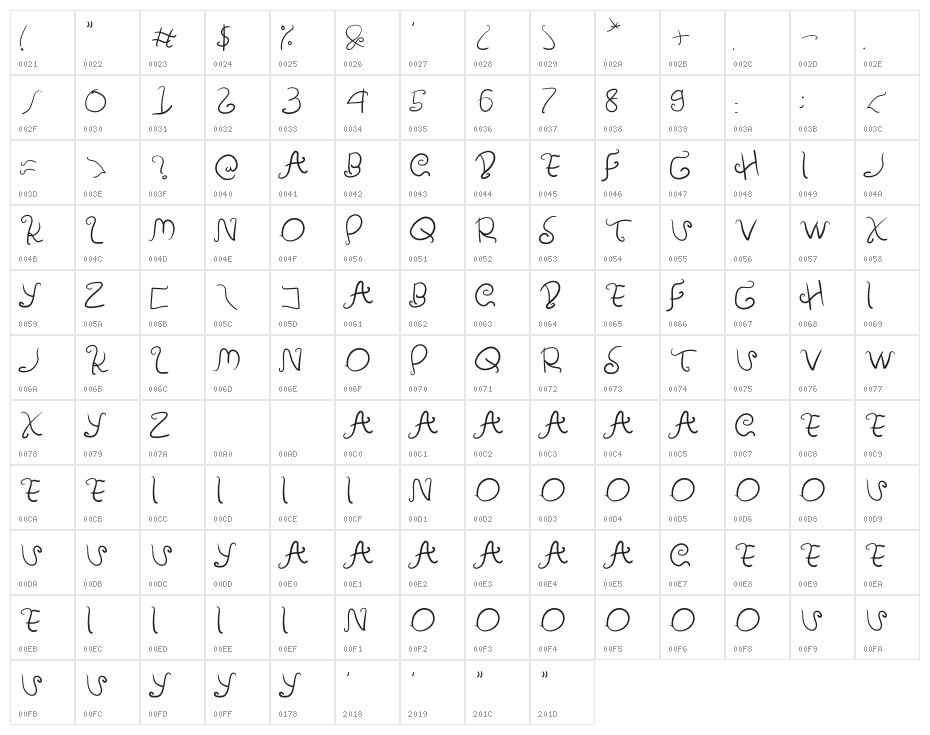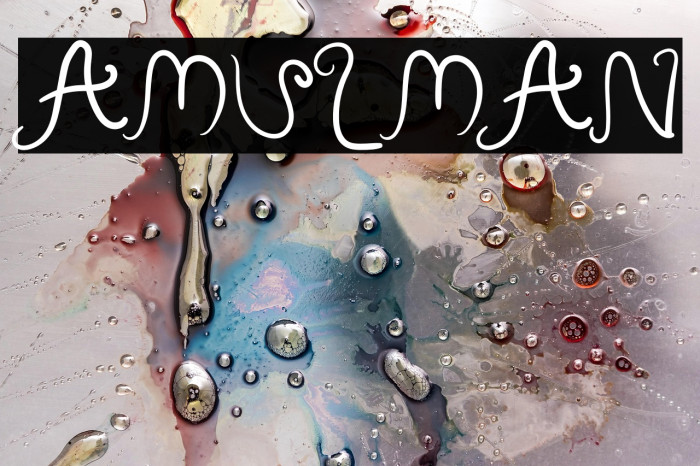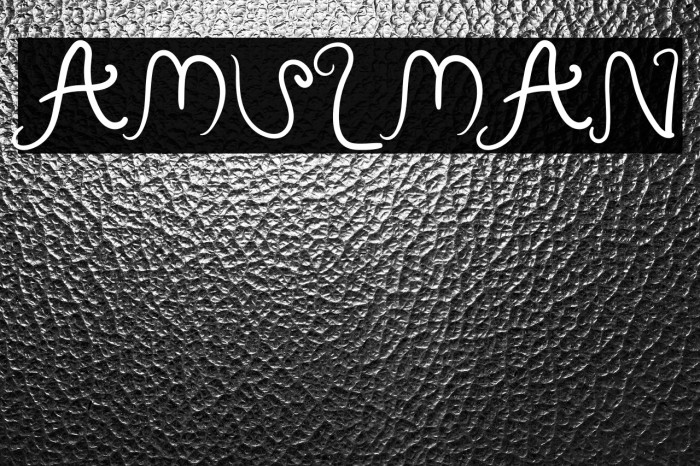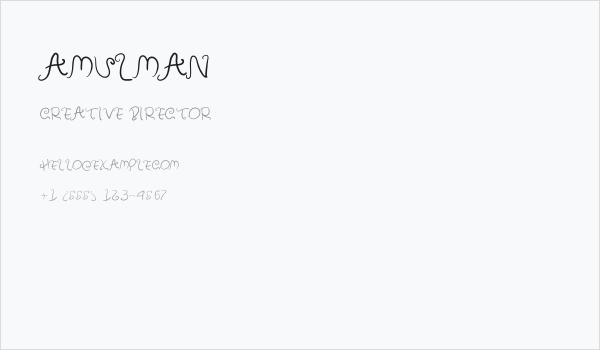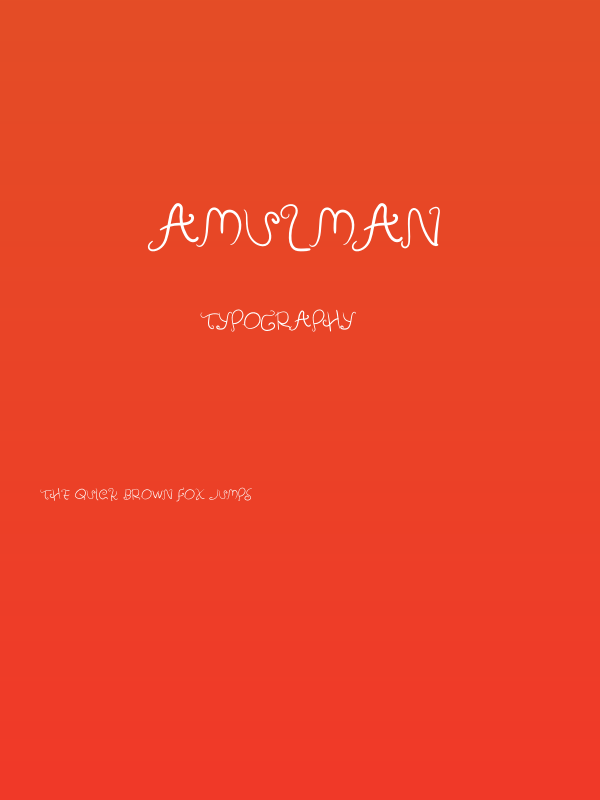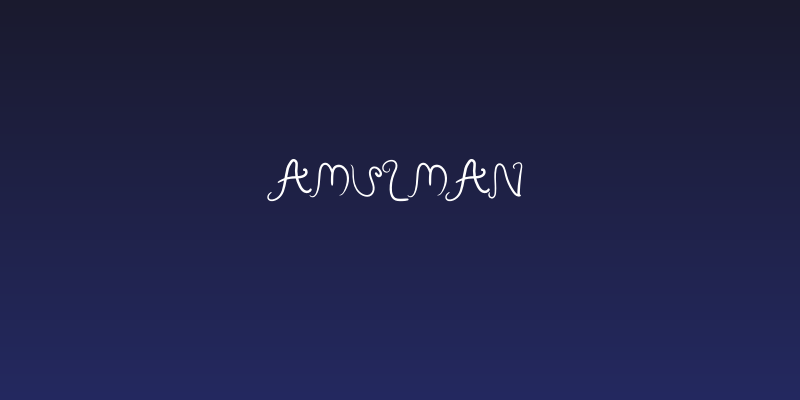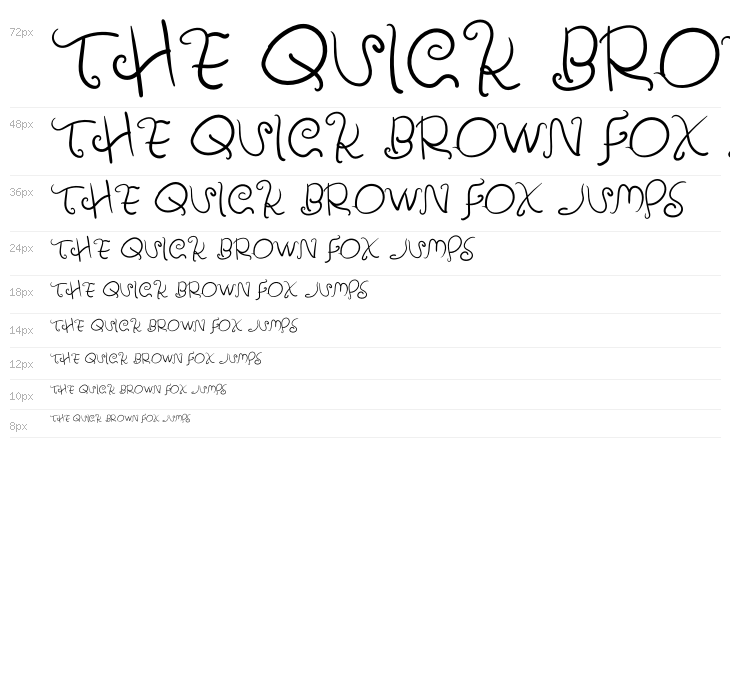
Amulman Font
Amulman Description
This font features a whimsical and artistic style, characterized by its flowing, cursive-like strokes and playful loops. The uppercase letters are bold and expressive, with exaggerated curves and swirls that give them a lively appearance. The lowercase letters maintain a similar aesthetic, with a slightly more restrained design that complements the uppercase. Numbers and special characters follow the same decorative theme, ensuring consistency across all elements. The overall design is both elegant and dynamic, making it suitable for creative and eye-catching applications.
| Use Case | Headlines, Logos, Artistic projects |
| Proposed Projects | Ideal for invitations, greeting cards, artistic posters, and branding materials that require a touch of elegance and creativity. |